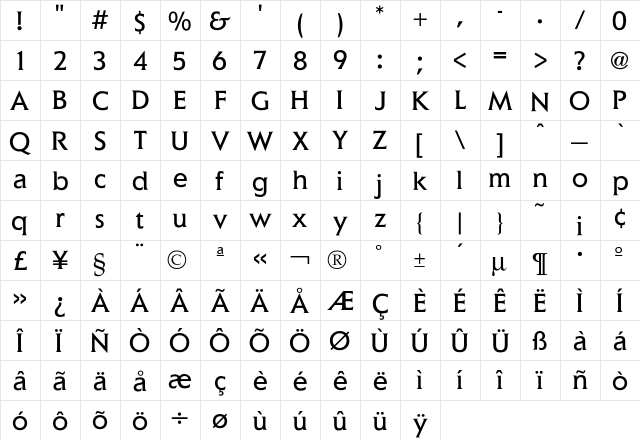
Elan Book
Design Context for Elan Typeface
Elan takes a measured approach to typography — its balanced proportions and neutral character make it a reliable workhorse for both digital and print work.